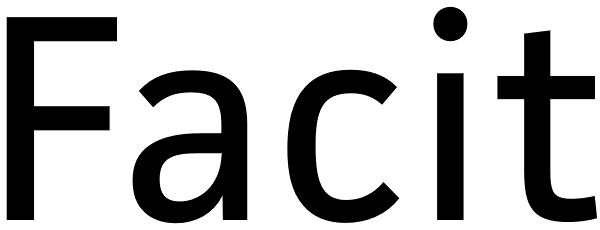
JAF Facit
Facit is a contemporary sans serif text face. It is designed to be a highly legible and flexible font that does not draw the attention to itself. Instead of being original by itself it is the result of a careful examination of ancient as well as...